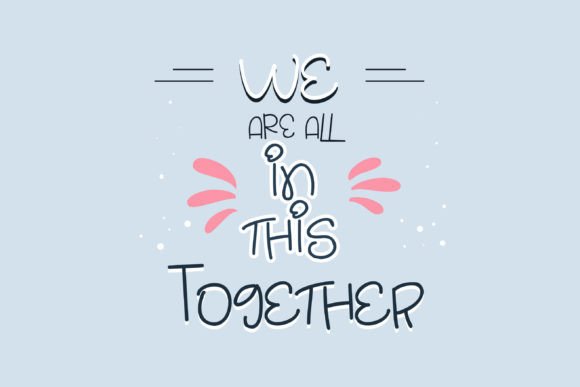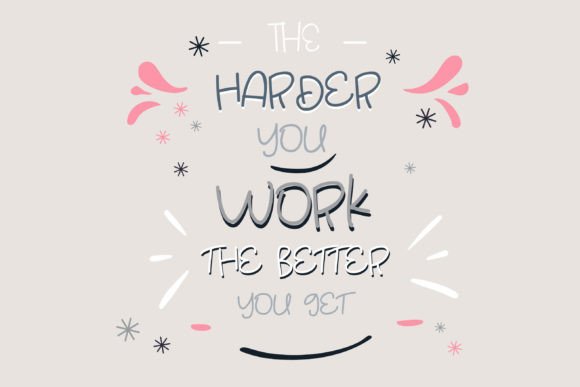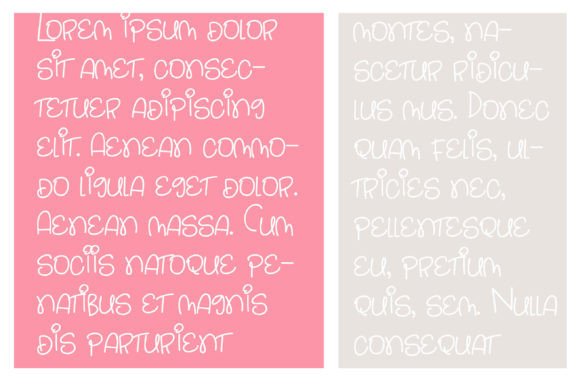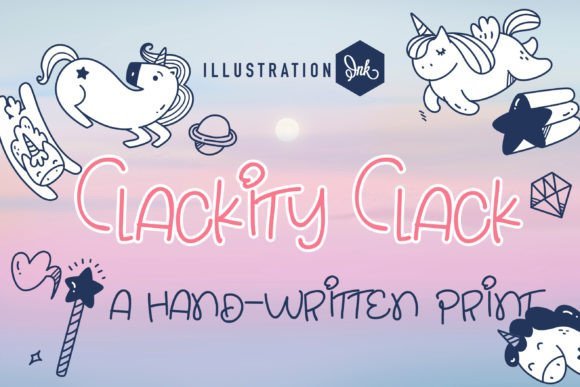
Introduction to Clackity Clack Font
Clackity Clack is a beautiful handwritten font with a playful, whimsical feel.
Its thin, rounded strokes give it a unique and eye-catching look, making it perfect for fun, creative projects It’s sure to add a charming touch of personality to any design.